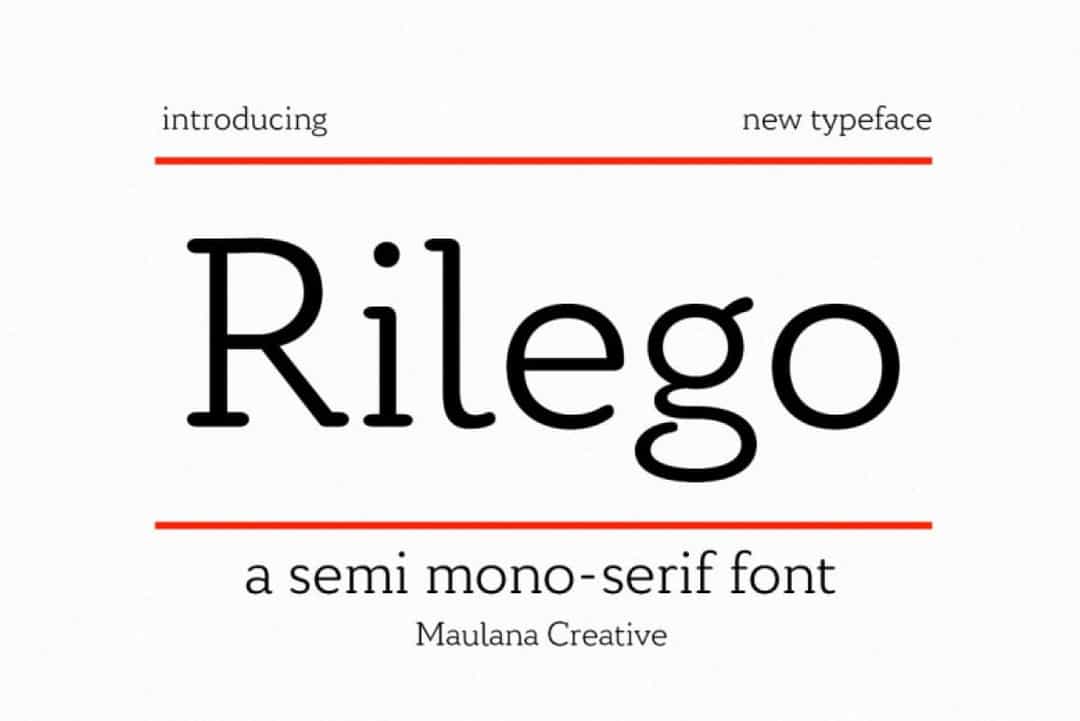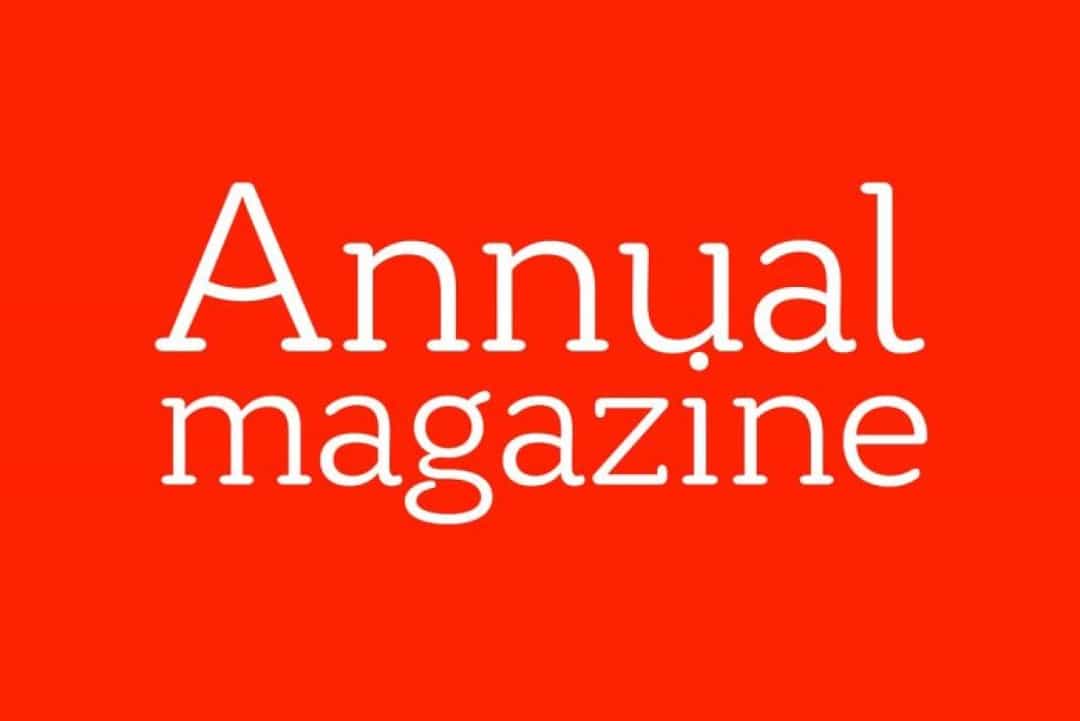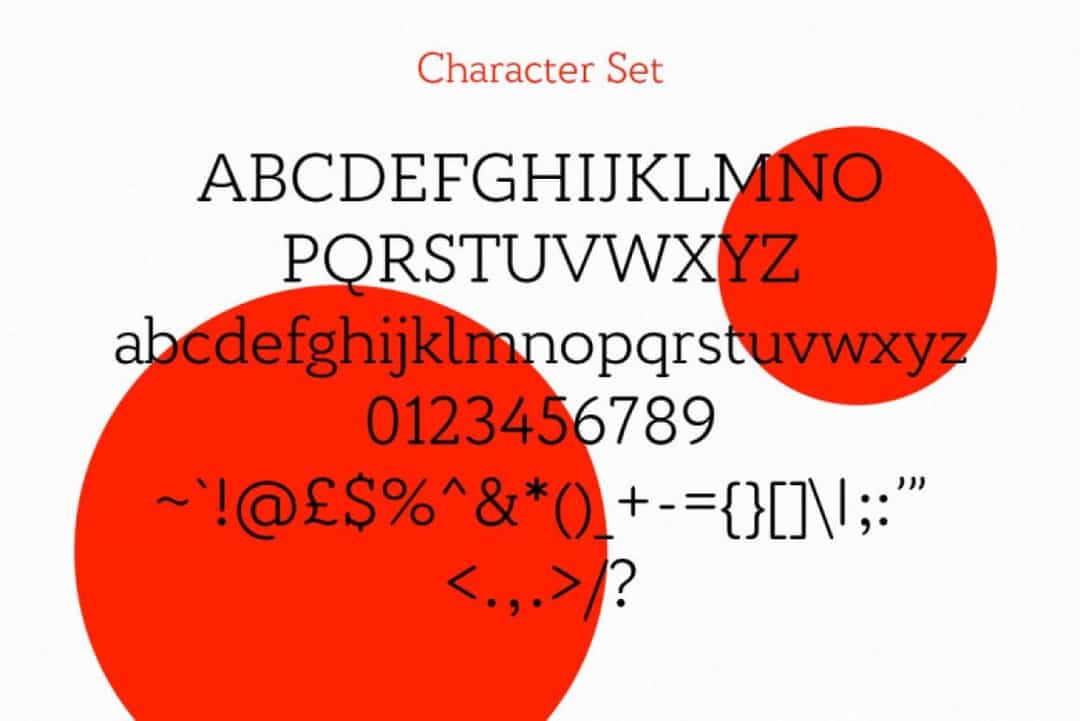
Rilego font is a semi-monospaced serif font with simple strokes and great with some ligatures and alternative characters that allows for creative work. Furthermore, this font offers support for more than 100 languages!